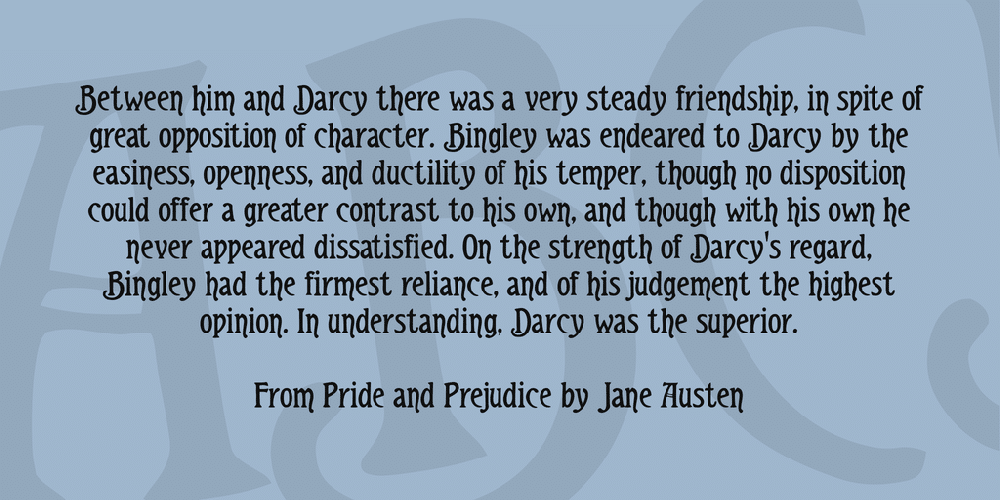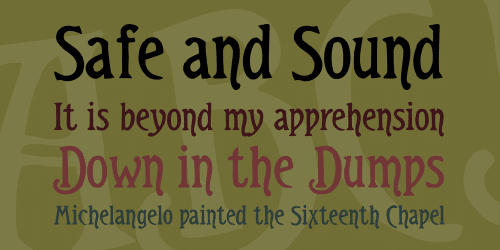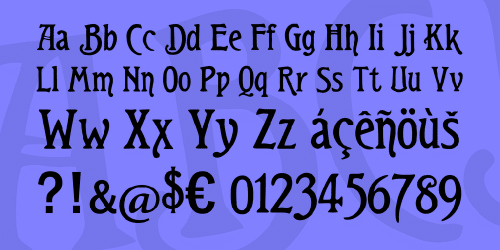
Teutonic Font was Published by the Scottish type foundry Miller & Richard in Edinburgh and inspired by the emerging Art Nouveau display fonts at the time, on the market under the name of Teutonic. Unfortunately I can not find too much more information on this font. Please donate if you like the font!
- Designer: Peter Wiegel